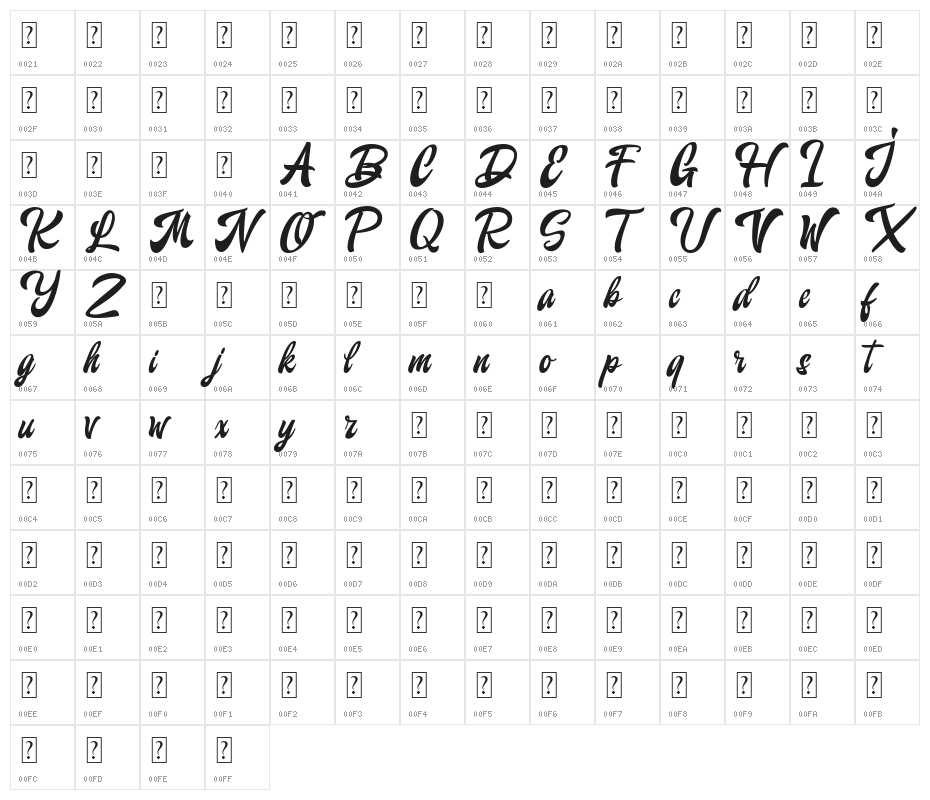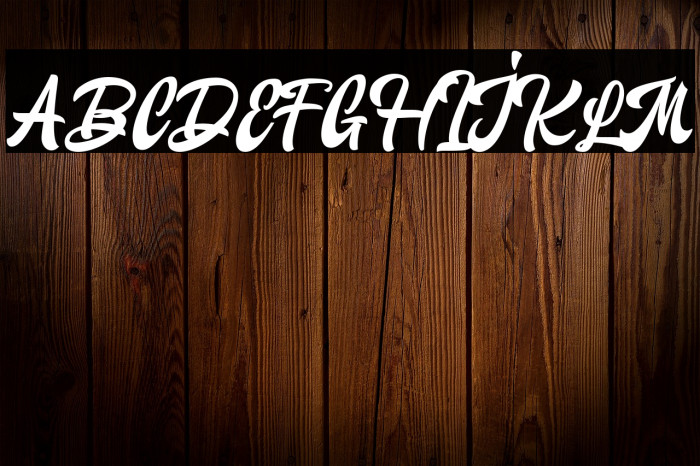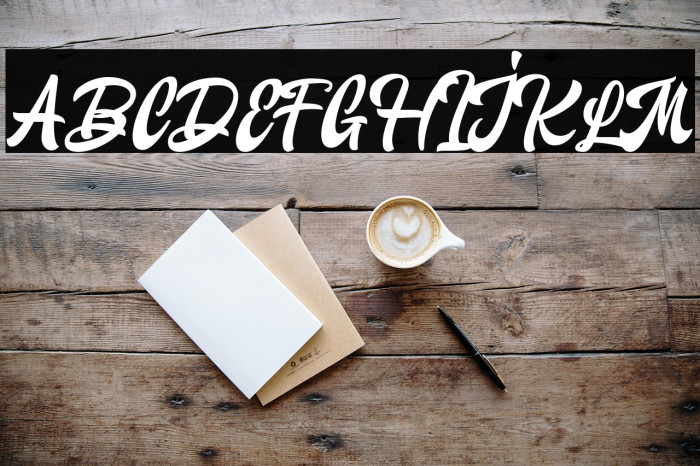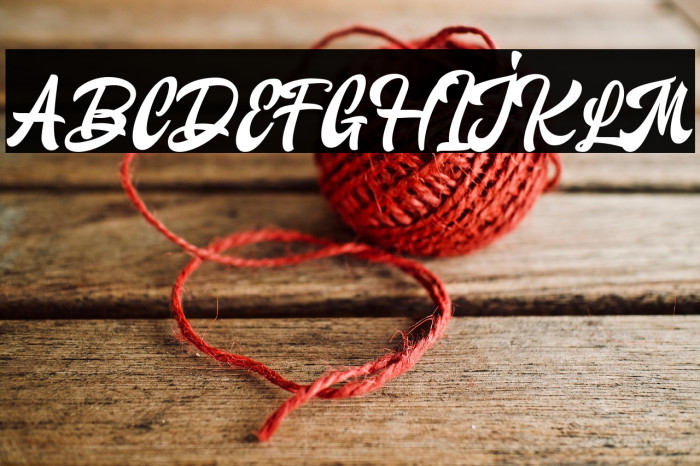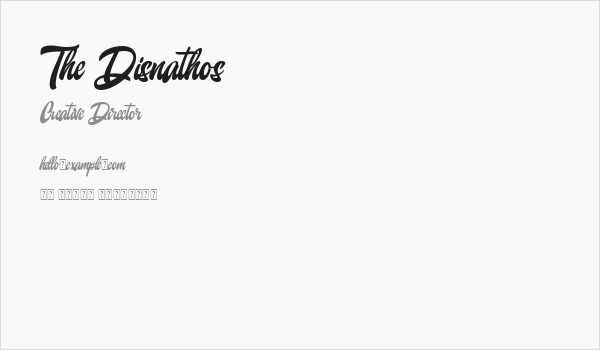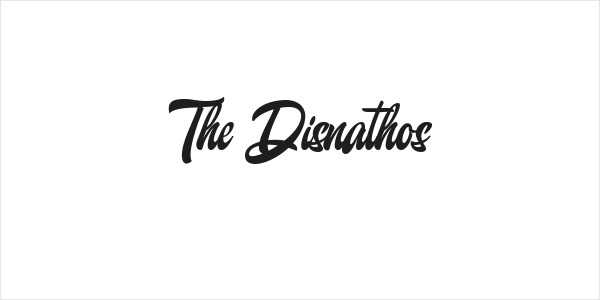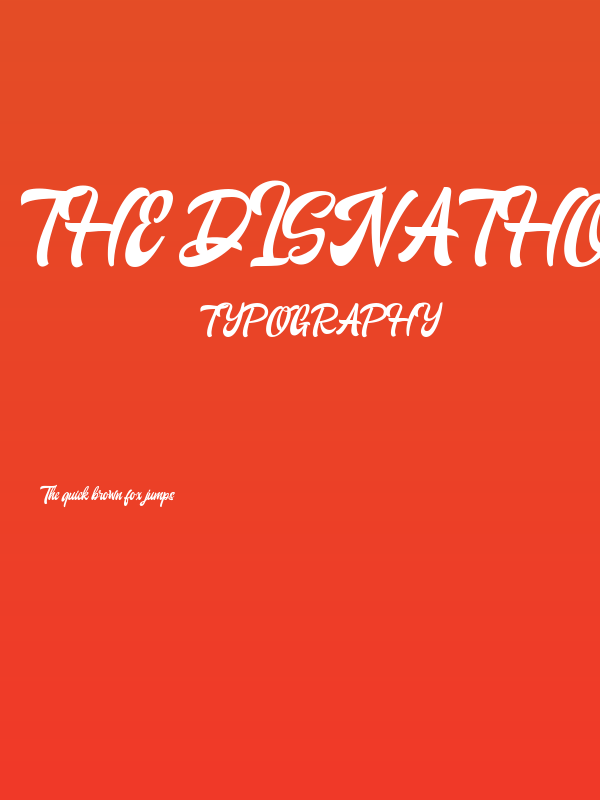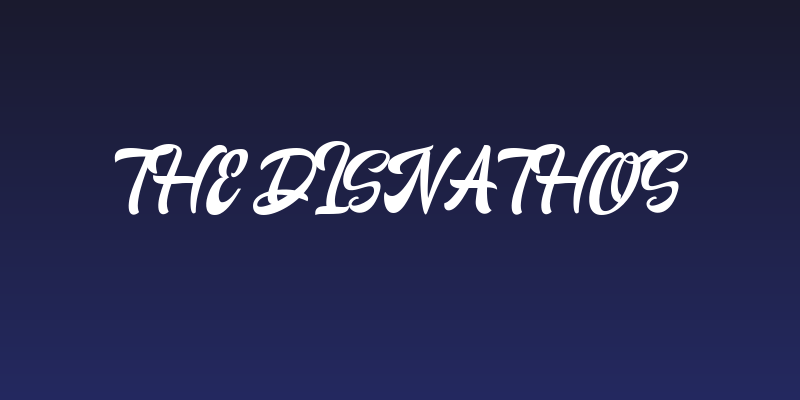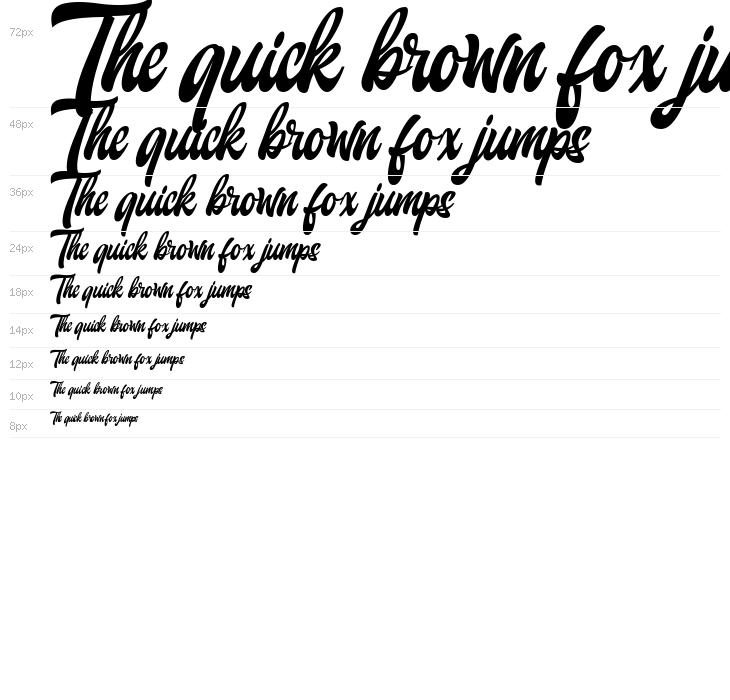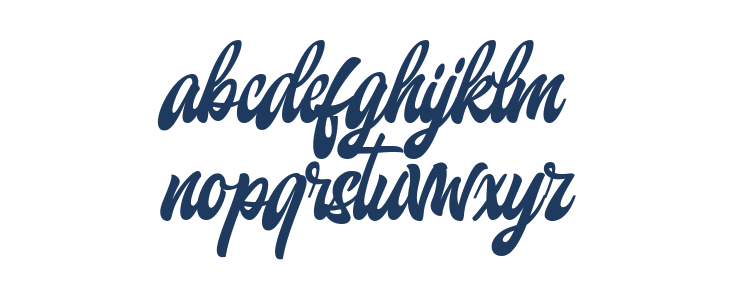
The Disnathos Font
The Disnathos Description
This font features a bold and flowing script style, characterized by its elegant and cursive letterforms. The uppercase letters are particularly striking, with sweeping curves and a sense of motion that adds a dynamic quality to the text. The lowercase letters maintain a consistent style, with smooth connections between characters that enhance readability. The font's overall appearance is both sophisticated and playful, making it suitable for a variety of creative applications. The absence of special characters in the image suggests a focus on alphabetic and numeric characters, which are well-suited for decorative purposes.